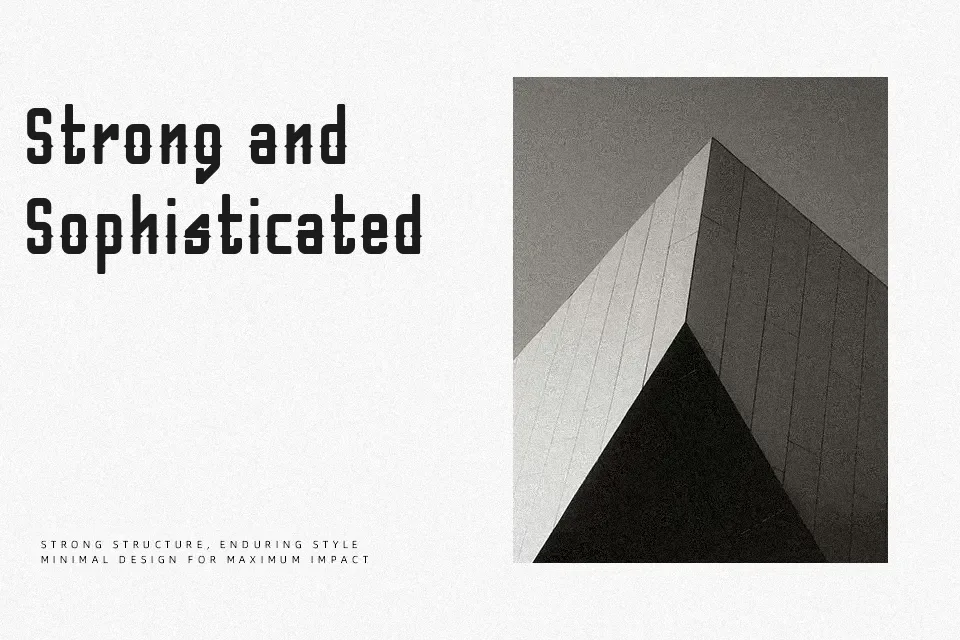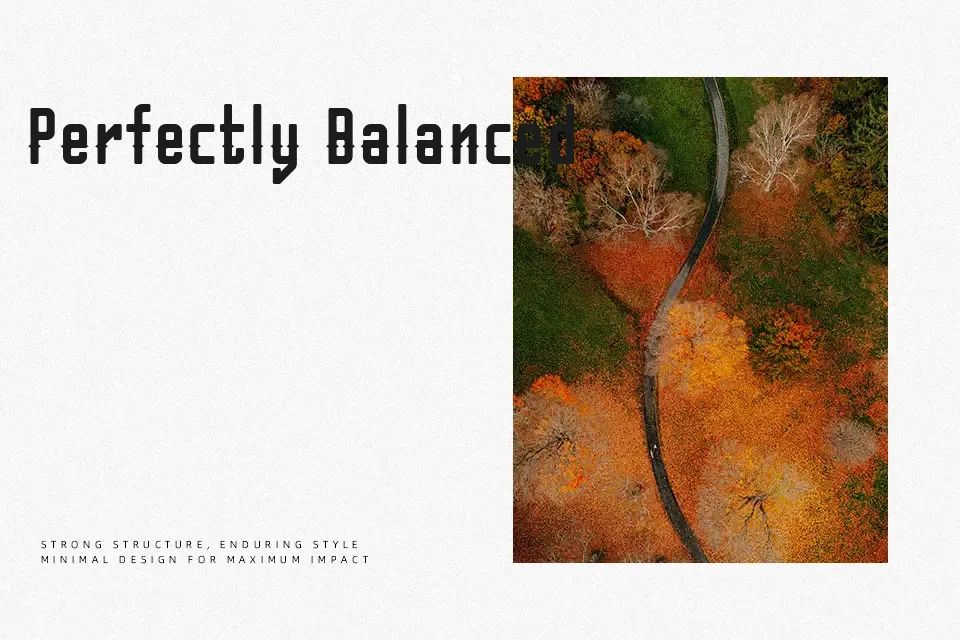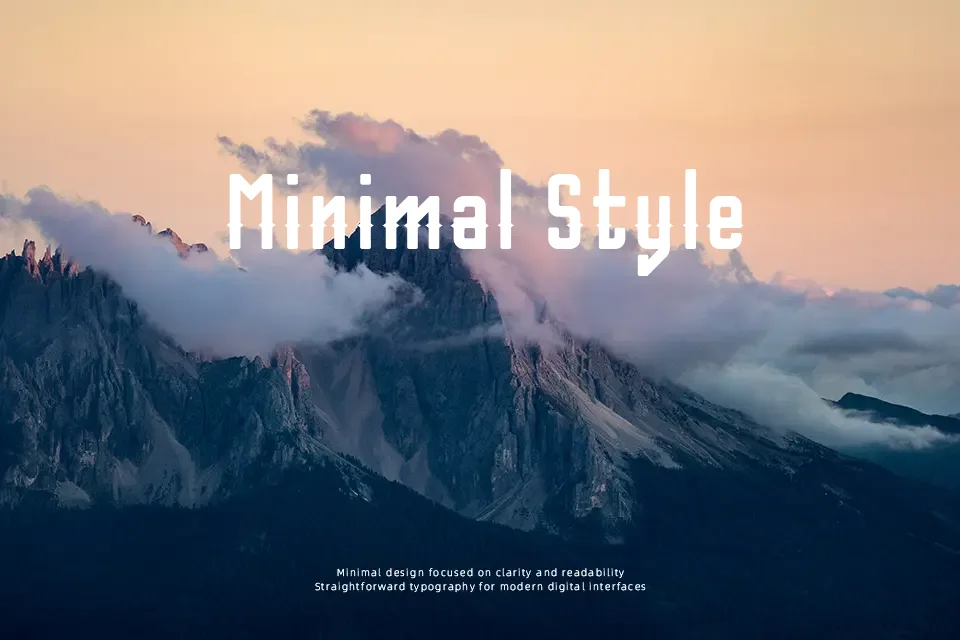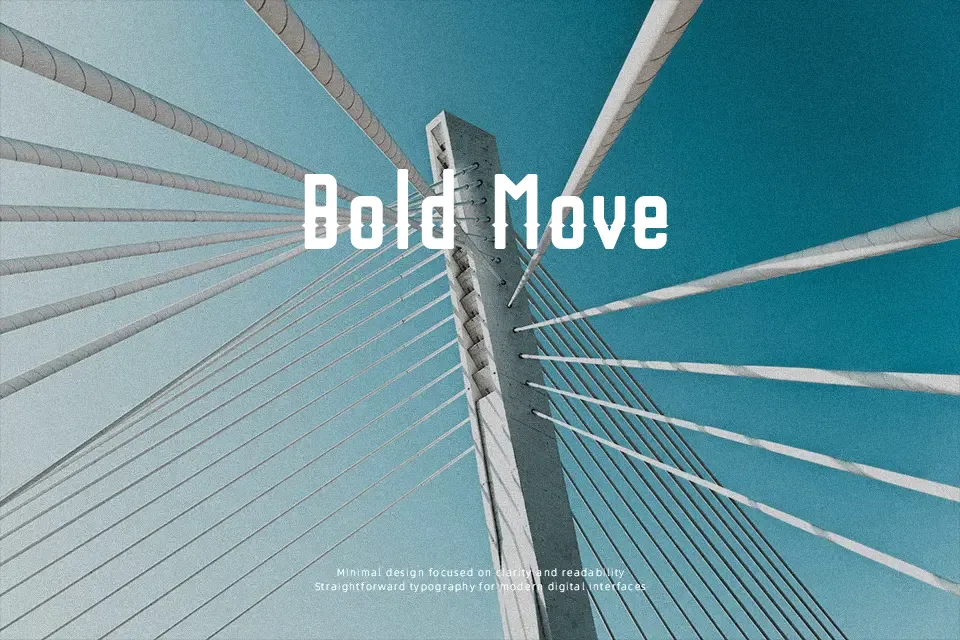
Belvis Font
Designed by Esteban Belvis Silk
Belvis hits with visual weight — its block-like, geometric characters are constructed with uniform strokes that leave little room for subtlety, and that’s exactly the point. The tight, condensed structure gives headlines a commanding presence without relying on ornamental flair. Works well for streetwear logos, music event flyers, and social media headers where bold personality drives the design. That said, its heavy decorative build makes it unsuitable for long-form reading; lines of body text become dense and fatiguing quickly. Designers who need a font to carry attitude at large sizes will find it useful; those needing versatility across weights and scales should look elsewhere.
Best For:- Music event poster headlines
– Streetwear and urban brand logos
– Social media statement graphics
– Sports team name treatments
Not Ideal For:- Body text or multi-line paragraphs
– Corporate or formal documents
– Small-size print (under 14pt)
– Elegant or luxury brand identities